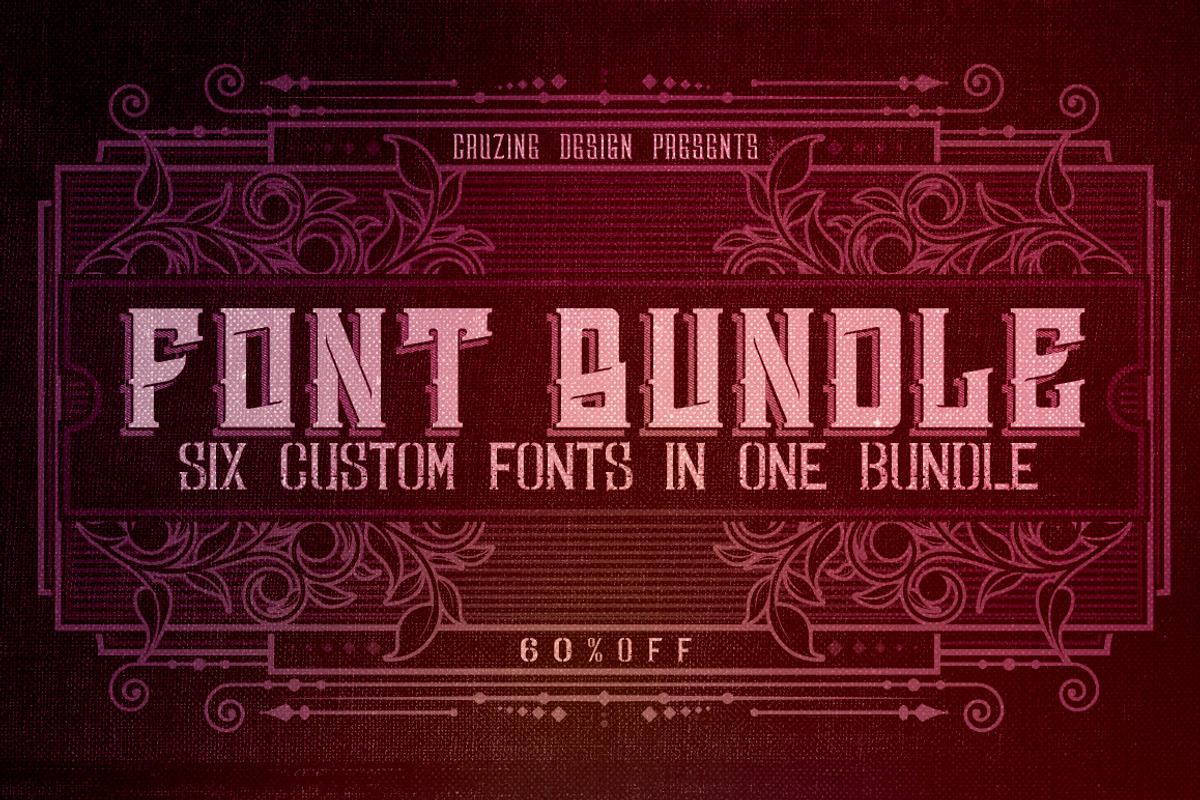
Introducing the 6 Custom Fonts in 1 Bundle Free Download, a curated collection of six unique, hand-drawn typefaces designed to elevate your creative projects. This bundle offers a diverse range of styles, making it perfect for various design applications such as branding, posters, invitations, and more. Each font brings its own distinctive character, allowing you to experiment and find the perfect typographic voice for your work. Download the 6 Custom Fonts in 1 Bundle Free Download to explore its features in personal projects. For commercial use, please ensure you purchase the appropriate license. Enhance your design toolkit with the versatility and charm of the 6 Custom Fonts in 1 Bundle Free Download